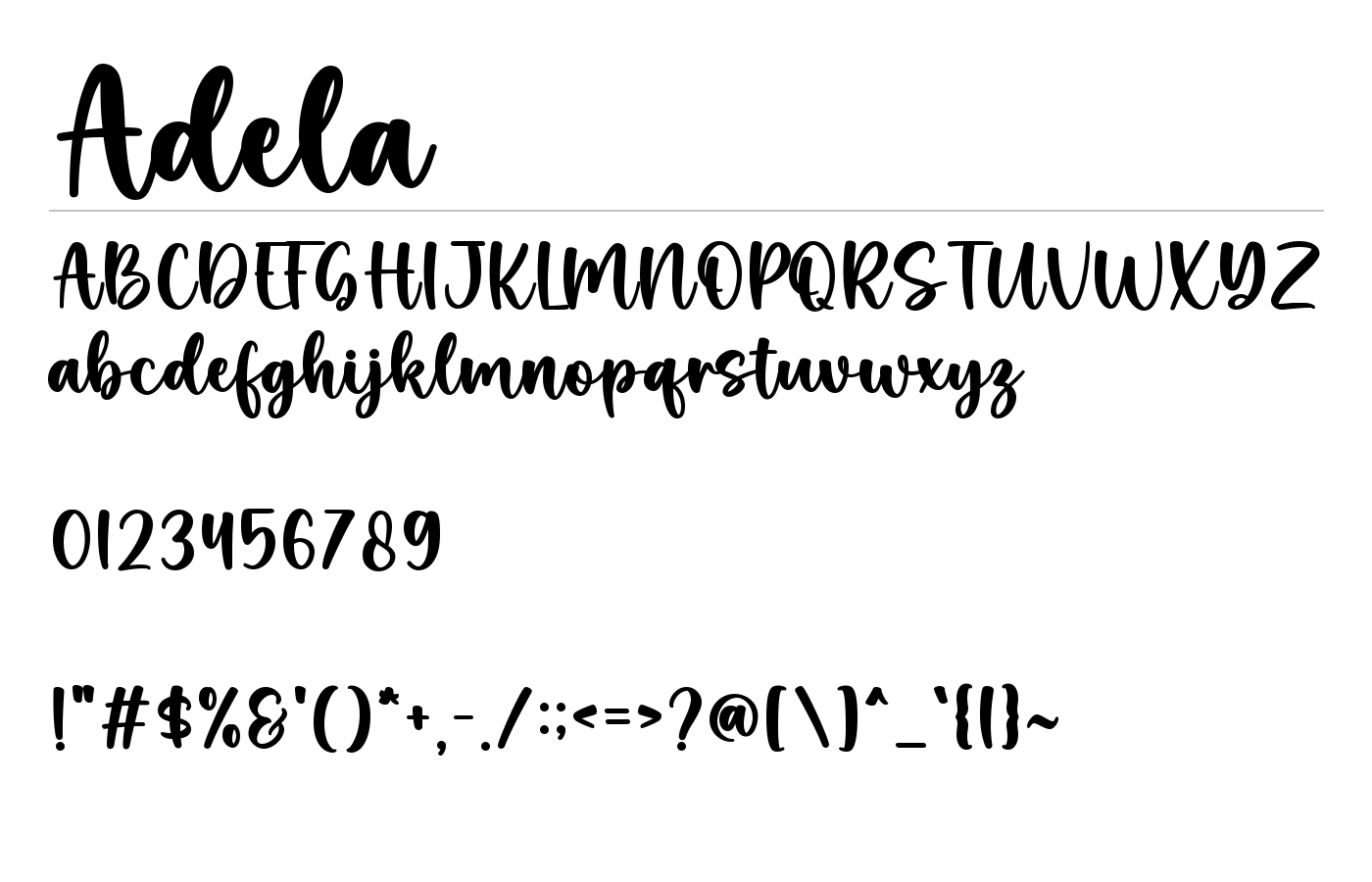
Adela is a playful and friendly script font with a warm handwritten style, featuring moderately thick strokes and smooth, rounded edges. Its lively letterforms, including distinctive loops and a natural flow, make it perfect for designs that want to feel personal and inviting. This font works beautifully in branding, invitations, and casual editorial use where a charming and approachable tone is desired.
Adela Font
About Adela Font
| Font family | Adela Font |
| Designer | Risma Ramawi |